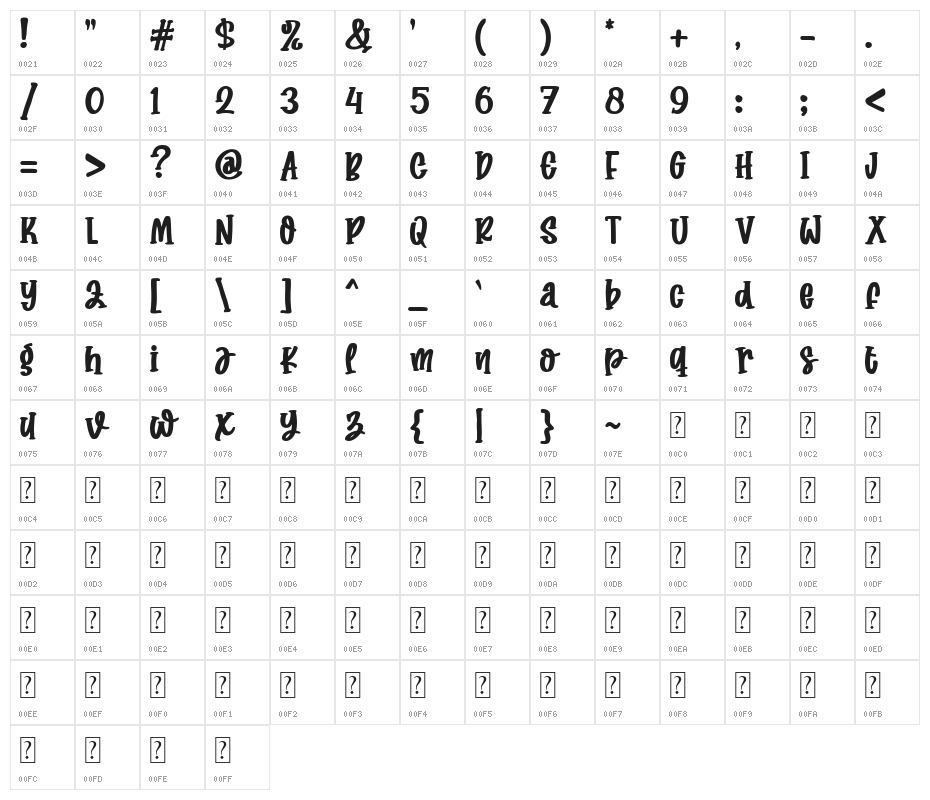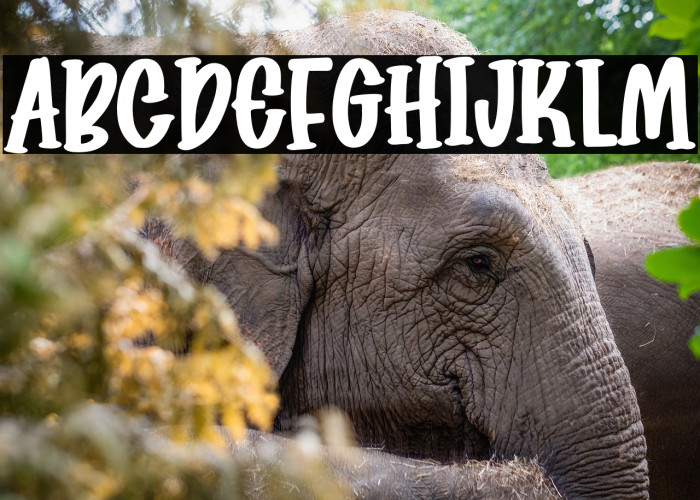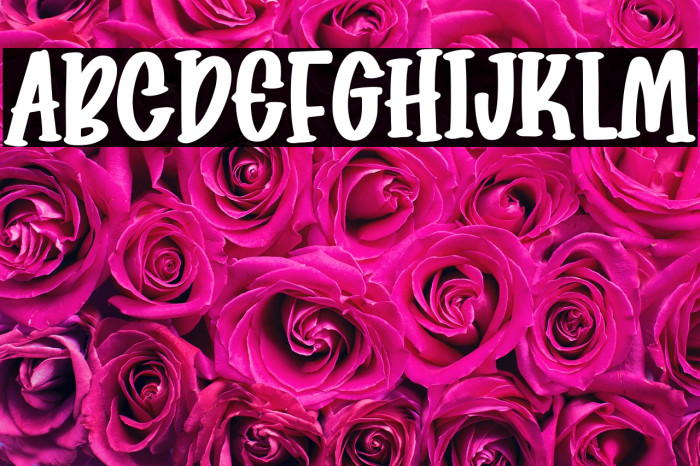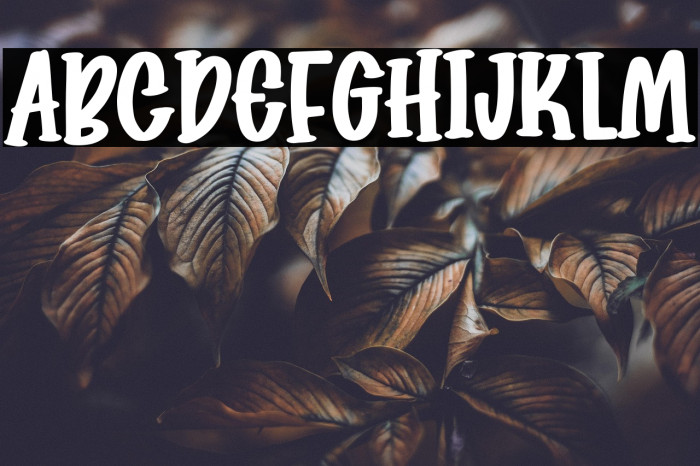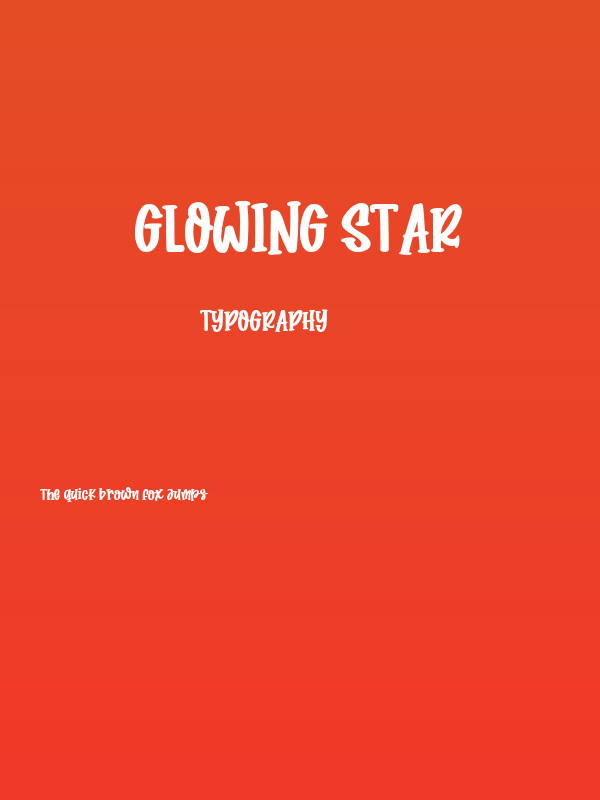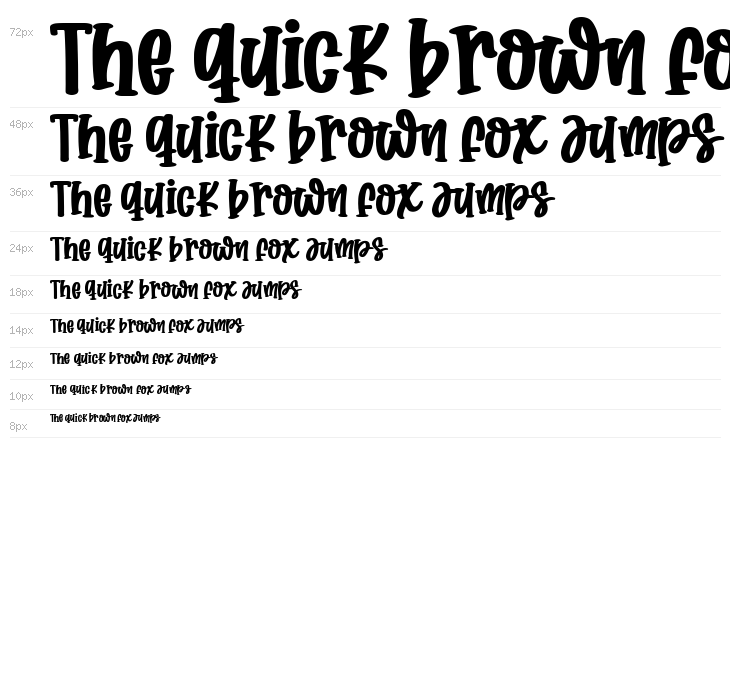
Glowing Star Font
Glowing Star Description
This font features a bold and playful script style with a hand-drawn appearance. The letters are characterized by thick, rounded strokes and a slight slant, giving them a dynamic and energetic feel. The uppercase and lowercase letters maintain a consistent style, with the lowercase letters exhibiting a unique flair in their curves and loops. Numbers and special characters are equally bold and expressive, complementing the overall aesthetic. The font's design is both modern and whimsical, making it suitable for creative and informal applications.
| Proposed Projects | Ideal for greeting cards, posters, branding projects, and social media graphics. |